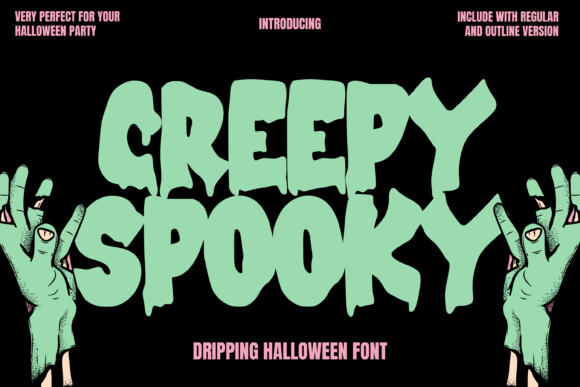
Creepy Spooky Font: The Ultimate Halloween Design Element
As the spookiest time of the year approaches, designers and artists are on the lookout for the perfect elements to make their Halloween-themed creations stand out. One crucial aspect of any eerie design is the font used to convey the message. This is where the Creepy Spooky Font comes in – a dripping Halloween font that brings the perfect blend of fright and fun to any design.
The Distinctive Dripping Effect
The Creepy Spooky Font features characters that appear as if they are melting, with a distinctive dripping effect that resembles oozing slime or blood. This effect adds an instant air of horror to your text, making it perfect for Halloween-themed designs, party invitations, or even horror movie posters. The dripping effect is not just a visual gimmick; it’s a clever design choice that evokes the feeling of something sinister and foreboding.
Jagged Edges and Uneven Lines
Each letter in the Creepy Spooky Font is crafted with jagged edges and uneven lines, contributing to the unsettling, eerie vibe that is synonymous with the Halloween season. The irregular shapes and distorted forms create a sense of unease, making the font perfect for designs that require a creepy, horror-inspired aesthetic. The jagged edges and uneven lines also give the font a hand-crafted, organic feel, as if the letters were written in blood or slime.
Perfect for Halloween-themed Designs
The Creepy Spooky Font is designed specifically for Halloween-themed designs, but its versatility makes it suitable for a wide range of creative projects. Whether you’re designing a:
- Halloween party invitation
- Horror movie poster
- Spooky video game title
- Eerie blog header
the Creepy Spooky Font is sure to add a touch of horror and whimsy to your design.
Tips for Using the Creepy Spooky Font
To get the most out of the Creepy Spooky Font, here are some tips to keep in mind:
- Use it sparingly: The Creepy Spooky Font is designed to make a statement, so use it sparingly to avoid overwhelming your design.
- Pair it with contrasting fonts: Combine the Creepy Spooky Font with a clean, sans-serif font to create visual interest and contrast.
- Experiment with colors: The Creepy Spooky Font looks great in bold, bright colors, but it also works well in muted, pastel shades.
Creepy Spooky Font in Graphic Design
The Creepy Spooky Font is not just a design element; it’s an experience. When used in graphic design, it can:
- Evoke emotions: The Creepy Spooky Font is designed to create a sense of unease, making it perfect for designs that require an emotional response.
- Create atmosphere: The font’s distinctive dripping effect and jagged edges create a spooky atmosphere, perfect for Halloween-themed designs or horror-inspired projects.
- Add personality: The Creepy Spooky Font is a statement piece, adding a touch of personality and whimsy to any design.
Creepy Spooky Font and Typography
Typography is a crucial aspect of any design, and the Creepy Spooky Font is no exception. The font’s unique design and distinctive dripping effect make it a great example of:
- Expressive typography: The Creepy Spooky Font is designed to express a specific emotion or atmosphere, making it a great example of expressive typography.
- Display typography: The font’s bold, eye-catching design makes it perfect for display typography, where the goal is to grab attention and make a statement.
The Creepy Spooky Font is a unique and versatile design element that’s perfect for Halloween-themed designs, horror-inspired projects, or any creative endeavor that requires a touch of fright and fun. With its distinctive dripping effect, jagged edges, and uneven lines, this font is sure to add an instant air of horror to your text. Whether you’re a designer, artist, or simply a fan of all things spooky, the Creepy Spooky Font is a must-have for your design toolkit.